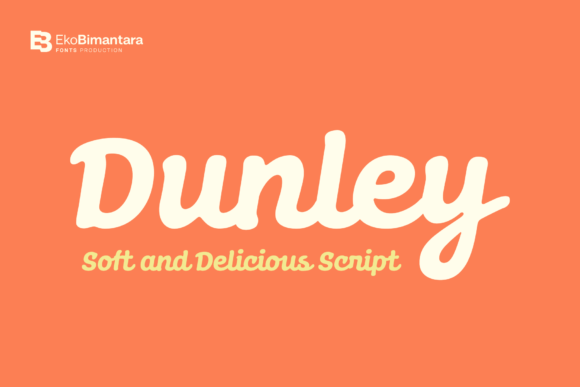
The Perfect Brush Stroke: Unveiling the Beauty of Dunley Font
Remember that moment when you first picked up a paintbrush and watched your creative vision come to life on a canvas? The thrill of experimenting with colors, the satisfaction of seeing your imagination take shape – it’s a feeling that never gets old. For designers and crafty individuals alike, the pursuit of unique and captivating typography is a continuous journey of discovery.
Enter Dunley Font, a sweet and thick lettered paint brush script that’s perfect for a wide range of creative endeavors. Whether you’re designing digital presentations, crafting handmade greeting cards, or simply looking to add a personal touch to your work, Dunley Font is the ideal companion. Its versatility and charm make it a valuable asset for designers seeking to elevate their projects and leave a lasting impression.
Dunley Font Key Features
- Unique Characteristics: The font features a unique blend of modern and traditional design elements, with subtle flair and elegance.
Dunley Font Review
I recently had the chance to work with the Dunley font, and I must say, it’s been an interesting experience. There are some things that work really well, and others that leave me feeling a bit uncertain.
- The Dunley font has a unique, elegant aesthetic that sets it apart from more generic fonts.
- It’s particularly well-suited for headings and titles, where its flair and personality can really shine.
- The font’s high x-height makes it easy to read, even at smaller sizes.
- The Dunley font can feel a bit over-the-top or even gaudy if used too liberally.
- Its irregular letterforms can be tricky to read in certain contexts, such as in paragraphs or at very small sizes.
- The font’s limited character set may cause issues for users who need to work with non-English text.
Overall, the Dunley font is a bit of a wild card. When used thoughtfully and in moderation, it can add a touch of sophistication and whimsy to a design. However, its limitations should not be overlooked, and designers should be mindful of how and when to use it.
The Dunley font is ideal for creating elegant and sophisticated designs. Use it for:
– Luxury product labels and packaging
– High-end marketing materials and brochures
For the most effective use, keep the font size large and the text simple, allowing the elegant design to shine.